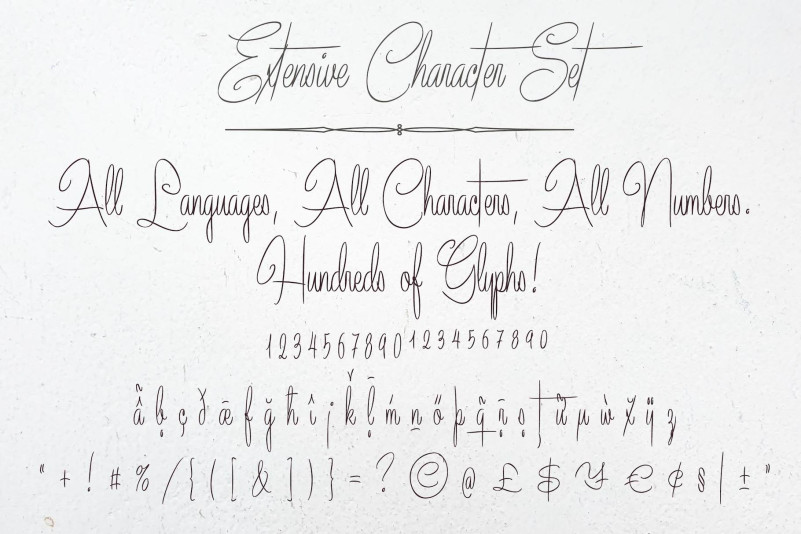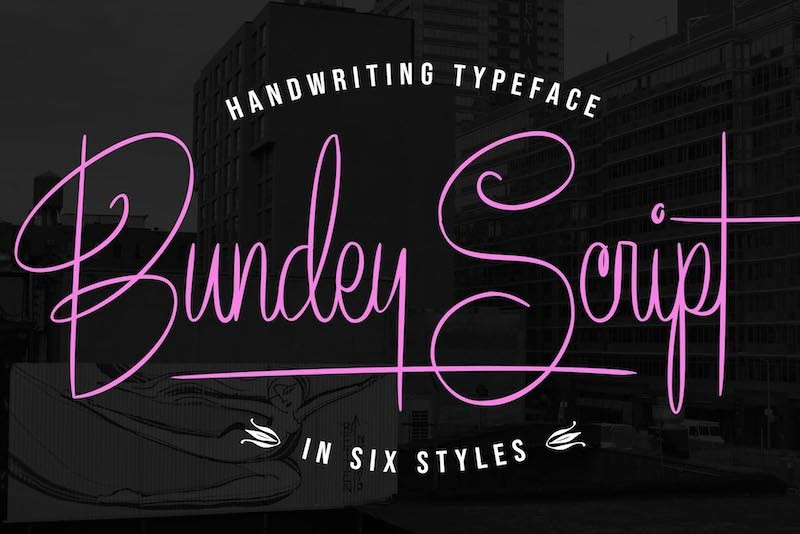
Bundey Script Font
Bundey Script Font, is a casual signature script font. With regular contrast stroke, fun character with a bit of ligature and alternates. To give you extra creative work. Sallutos font supports multilingual more than 100+ languages. This font is good for logo design, Social media, Movie Titles, Books Titles, short text even a long text letter, and good for your secondary text font with sans or serif. Make a stunning work with Sallutos font.